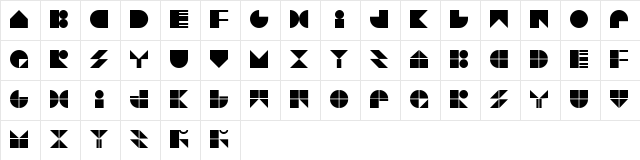
Design Context for Try type
Try type is a composed and adaptable typeface that performs quietly and consistently across a wide range of design contexts.